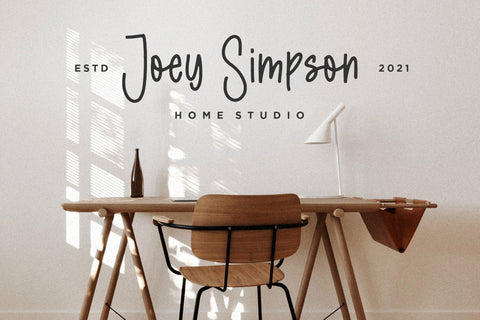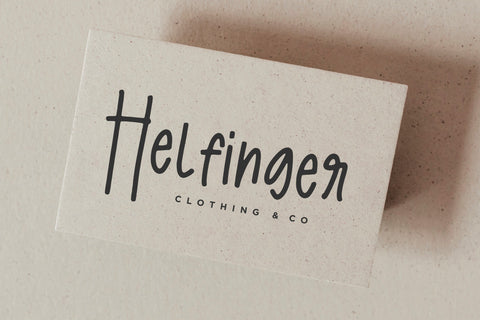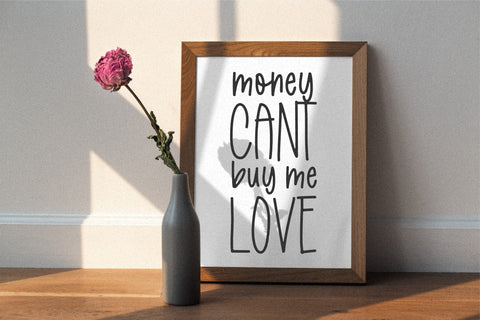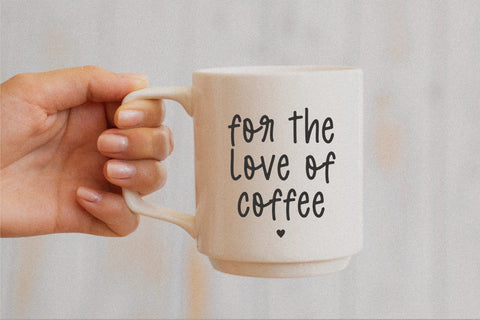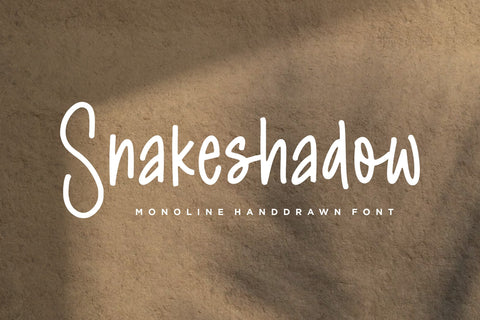
Snakeshadow is a Monoline Handdrawn Font
Introducing by Letterative Studio : Snakeshadow Font
Snakeshadow is a Monoline Handdrawn Font
Snakeshadow is a Monoline Handdrawn font. Snakeshadow feels playfully nostalgic and delivers an incredible vintage aesthetic. Use this delicate script font to add a special touch to any design idea you can think of!